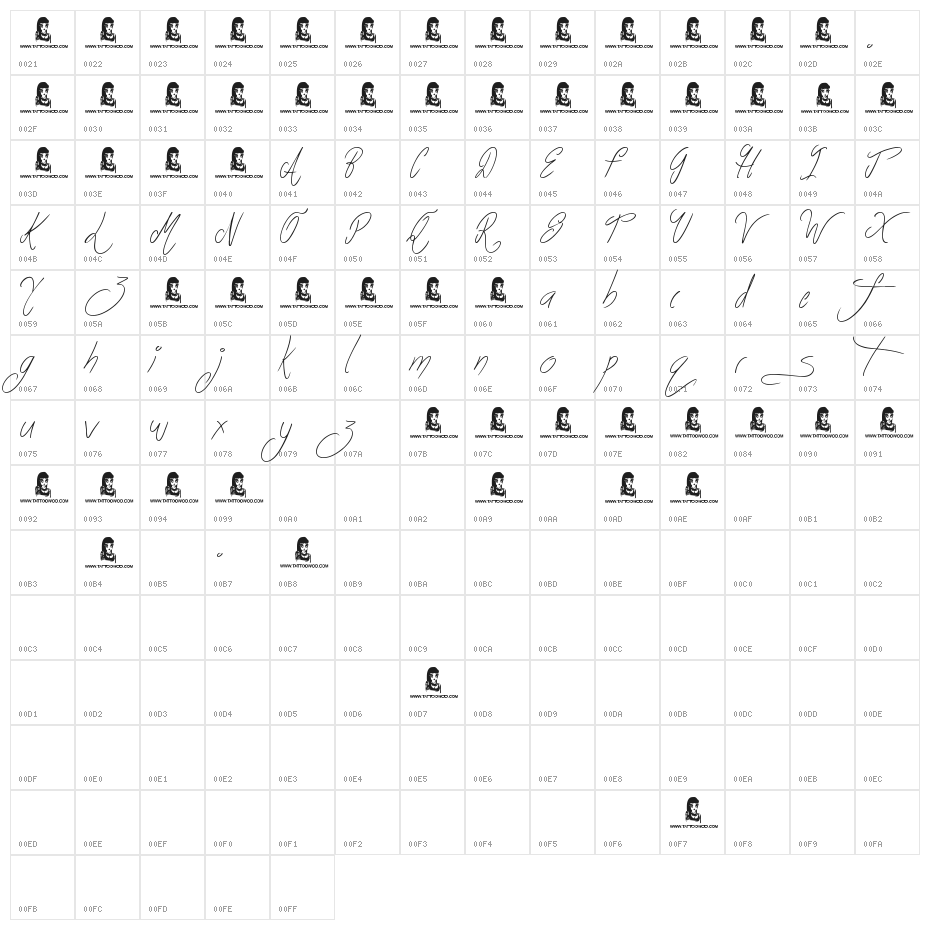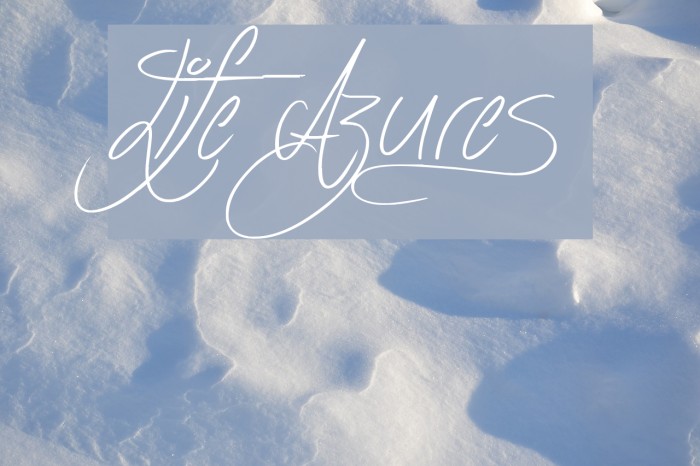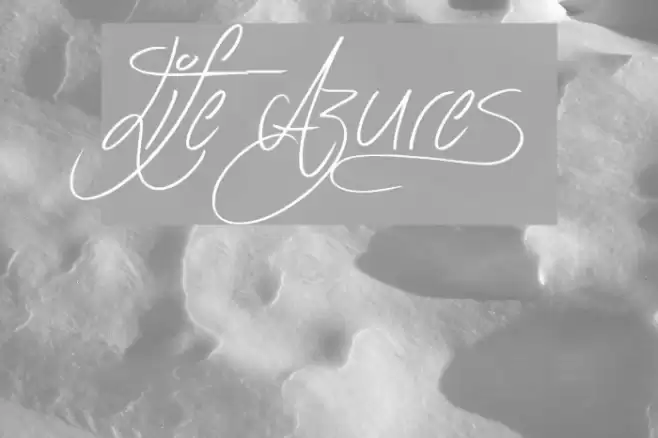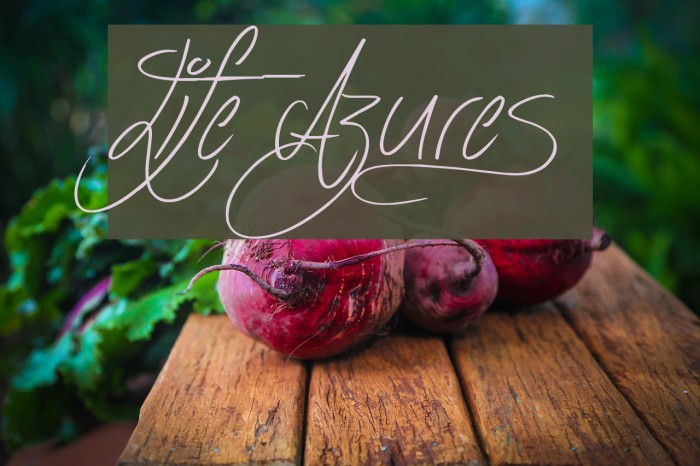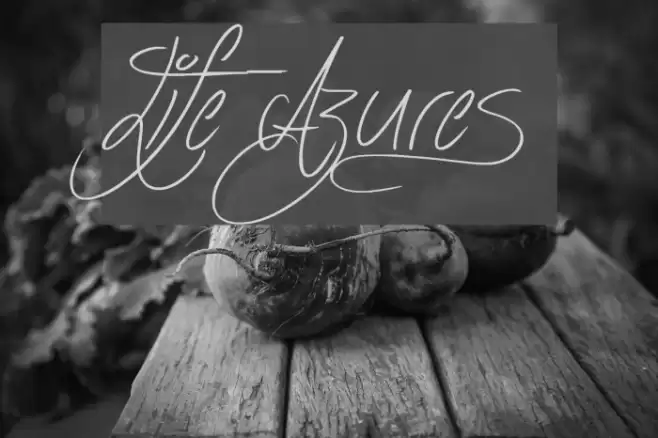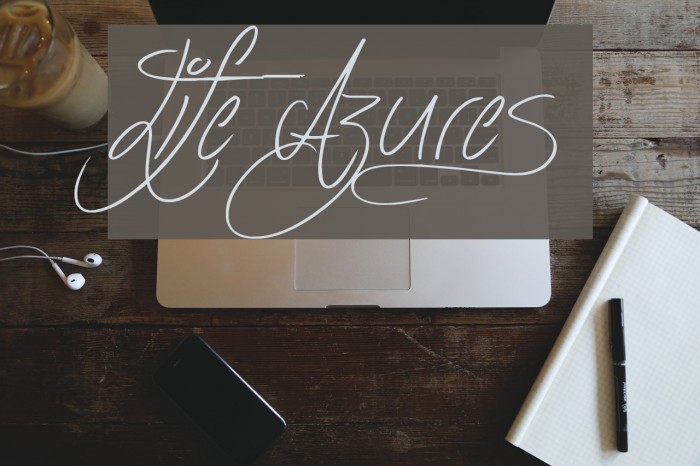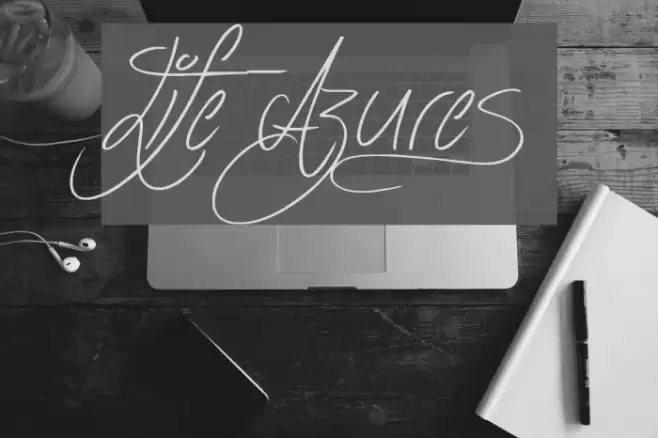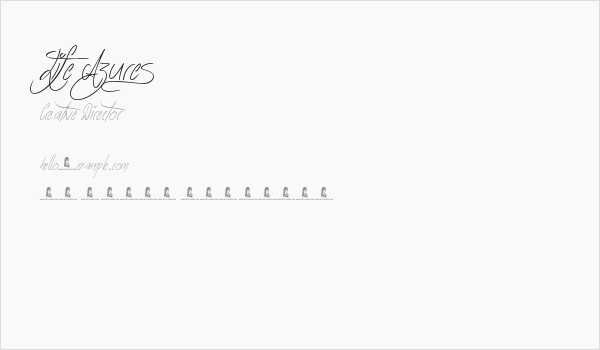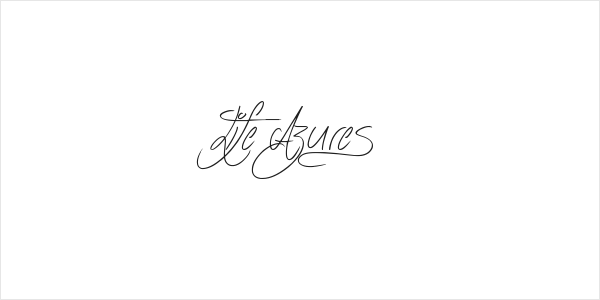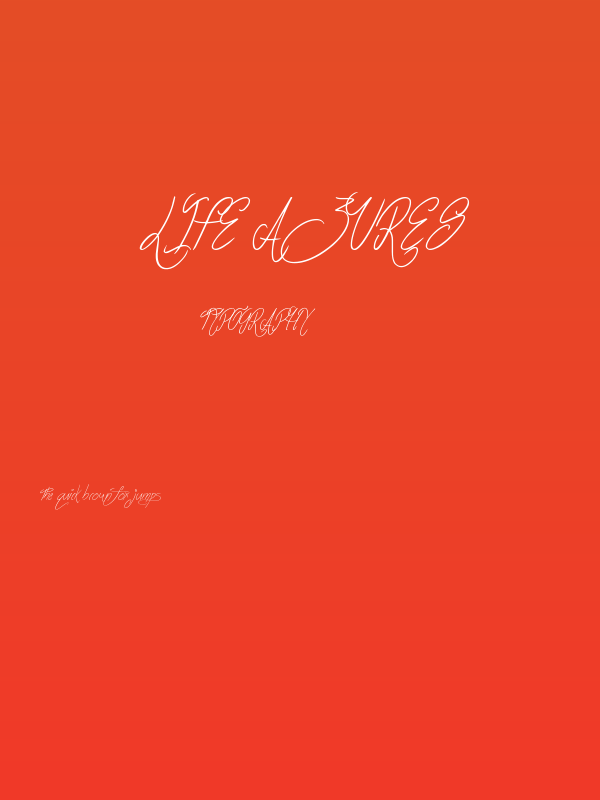
Life Azures Font
Life Azures Description
This font features an elegant and flowing script style, characterized by its intricate and interconnected letterforms. The uppercase letters are tall and slender, with graceful loops and swashes that give a sense of movement and fluidity. The lowercase letters maintain a consistent style, with smooth curves and a slightly more compact form. The overall appearance is sophisticated and artistic, making it suitable for creative and decorative applications. The font's design emphasizes a handwritten aesthetic, with a natural and organic feel that adds a personal touch to any project.
| Use Case | Logos, Invitations, Artistic designs |
| Proposed Projects | Ideal for wedding invitations, greeting cards, personal branding, and artistic projects. |